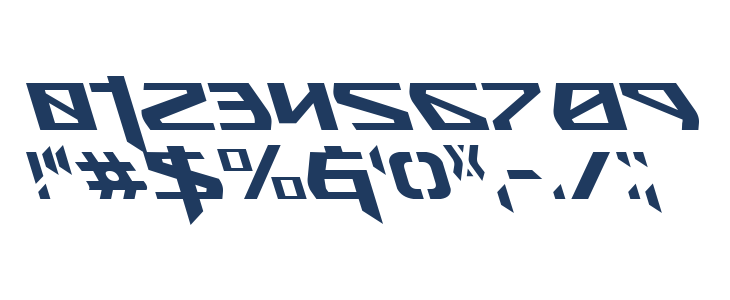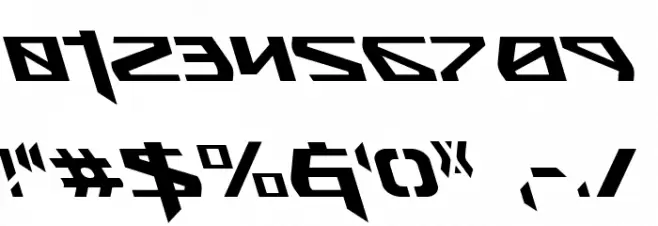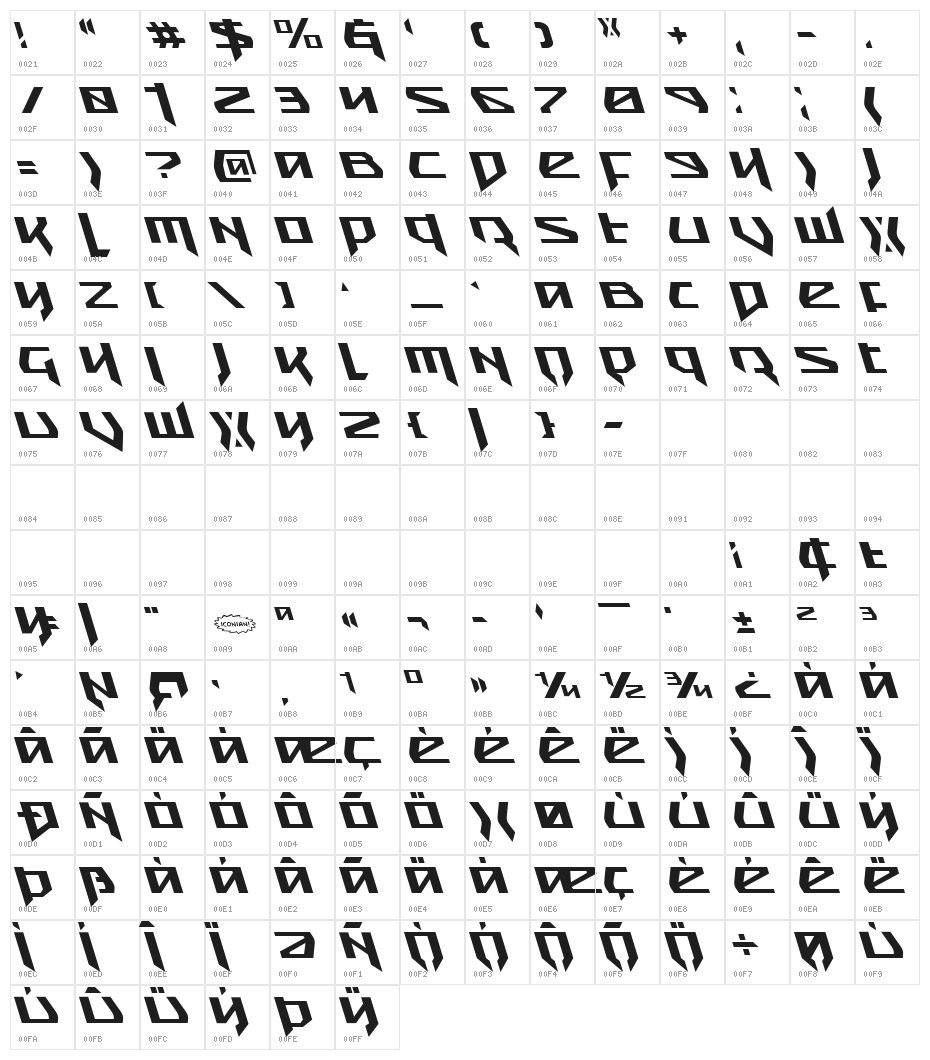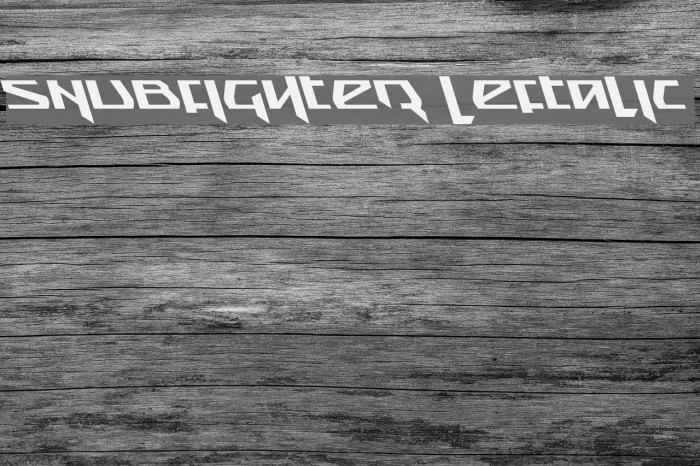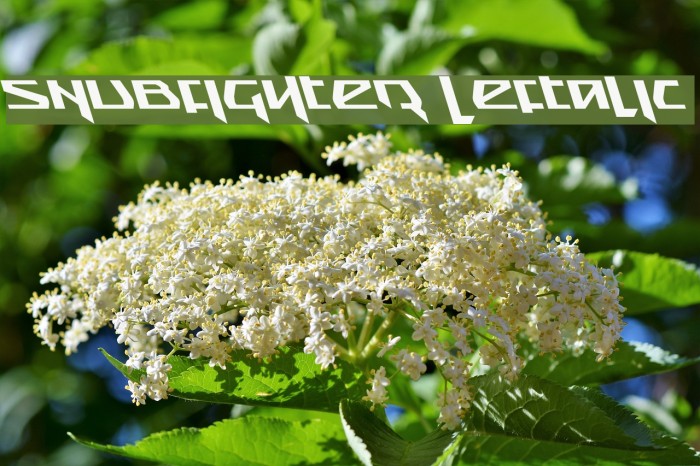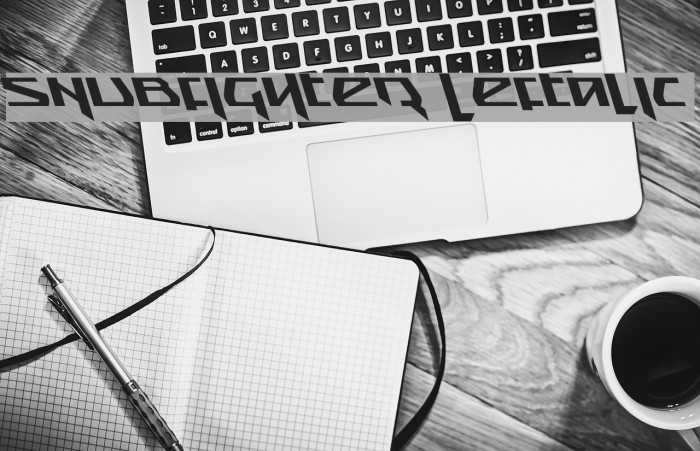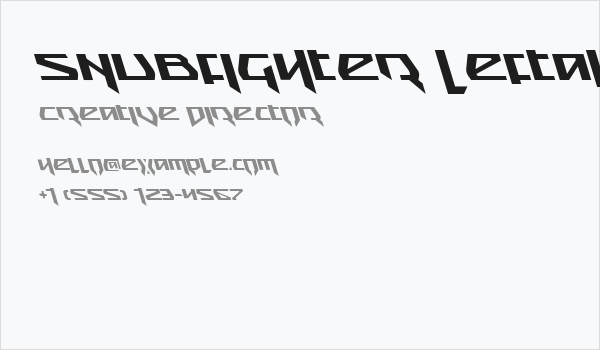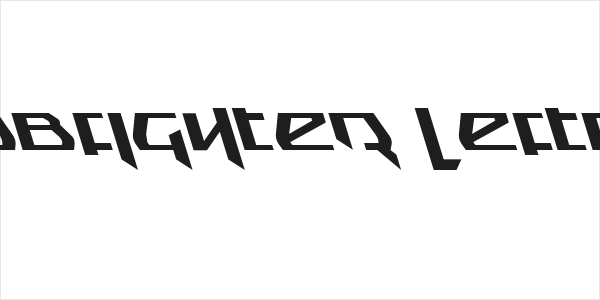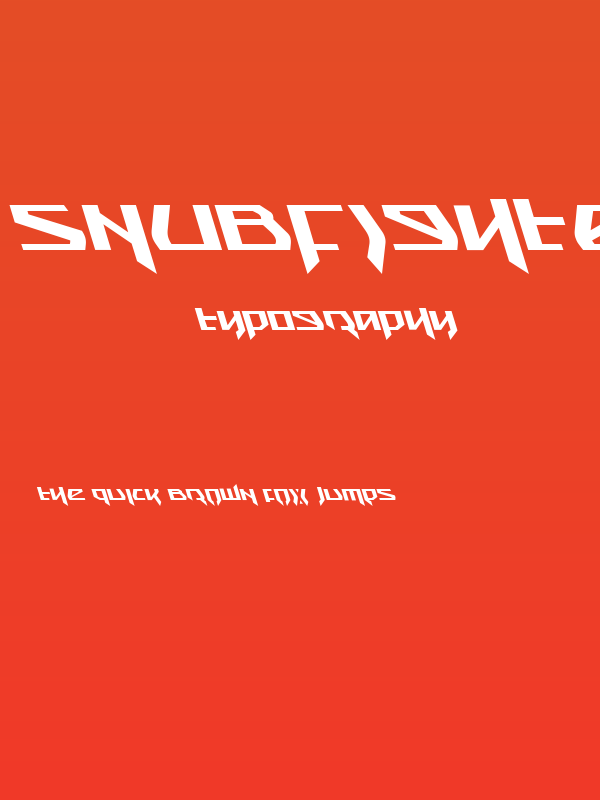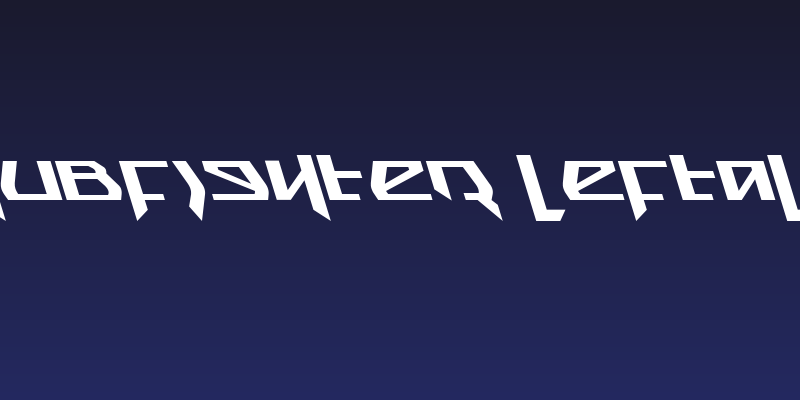
Snubfighter Leftalic Font
Snubfighter Leftalic Description
This font features a bold, angular design with sharp edges and a futuristic aesthetic. The characters are heavily stylized, with a distinct geometric influence that gives them a unique, aggressive appearance. The uppercase and lowercase letters maintain a consistent style, with exaggerated angles and a dynamic slant that suggests movement. The numbers and special characters follow the same design principles, ensuring a cohesive look across all glyphs. This font is ideal for projects that require a modern, edgy feel, such as video game titles, sci-fi posters, or branding for tech companies.
| Overall Style | Futuristic, Edgy |
| Proposed Projects | Ideal for video game titles, sci-fi posters, tech branding, and edgy graphic designs. |